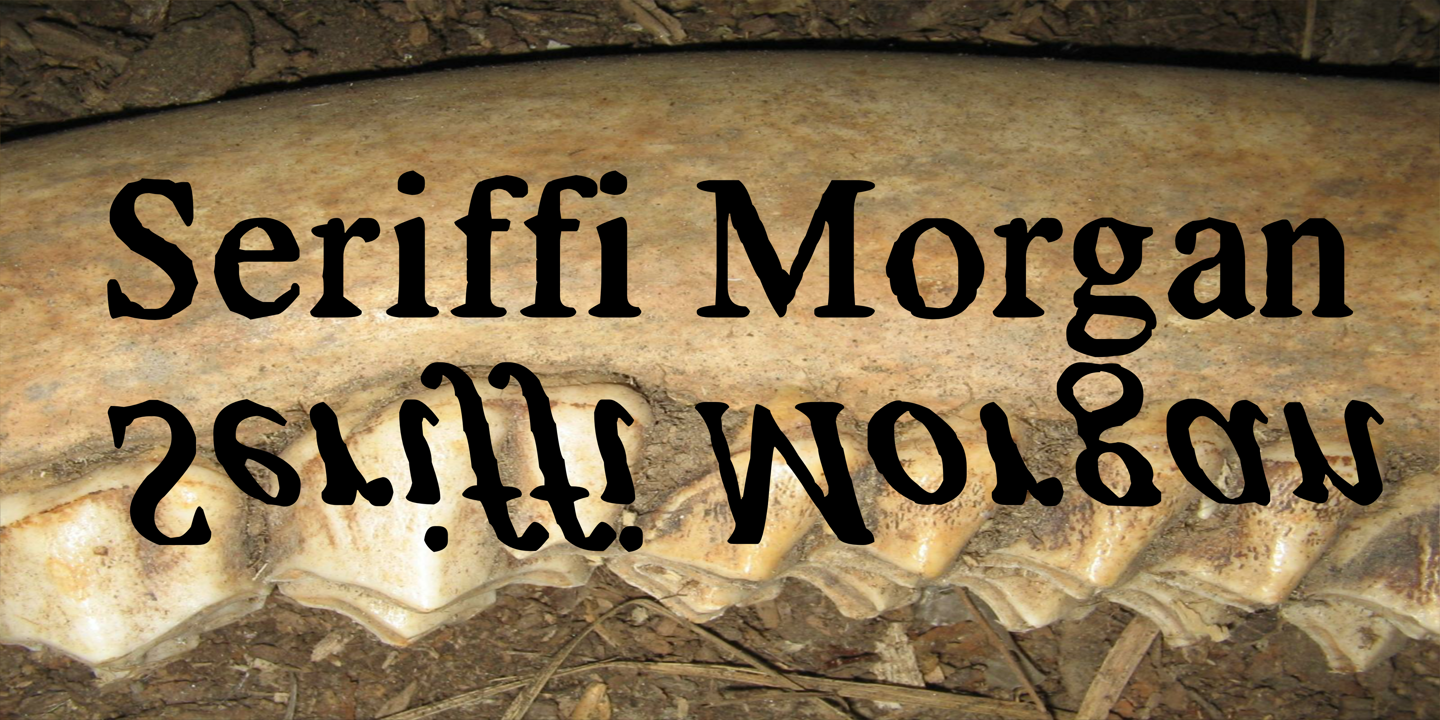
Seriffi Morgan Font is an exceptional choice for projects that demand a blend of classic elegance, strong readability, and a touch of timeless sophistication. It's perfectly suited for formal invitations, high-end branding, editorial layouts, academic publications, and any application where you need to convey a sense of authority, tradition, and refined aesthetics. Imagine it gracing the pages of a luxury magazine, lending an air of established credibility to a corporate report, or adding a touch of understated luxury to a product's packaging. Its meticulously crafted serifs and balanced letterforms ensure your message is conveyed with both clarity and an undeniable sense of enduring style.
What makes Seriffi Morgan Font so exciting is its remarkable ability to feel both traditional and utterly fresh. It possesses a warmth and clarity that makes long-form reading a pleasure, while its distinctive details provide a unique character that elevates it beyond generic serif typefaces. This font isn't just about conveying information; it’s about shaping the perception of your content, making it appear more authoritative, reliable, and aesthetically pleasing. It's the ideal tool for designers who want to create visuals that are both deeply readable and exquisitely styled, perfect for an era that appreciates both heritage and modern design.
The Seriffi Morgan Font family typically offers a comprehensive range of weights and styles to provide maximum design flexibility. You can expect to find a broad spectrum from a delicate Light or Thin, through a versatile Regular, to a commanding Bold or Black weight, often accompanied by corresponding italic versions. This extensive range allows for sophisticated typographic hierarchies and ensures that whether you need subtle annotations or prominent headlines, the Seriffi Morgan Font Free Download provides the foundational versatility to achieve a cohesive, elegant, and highly professional design across all your platforms.